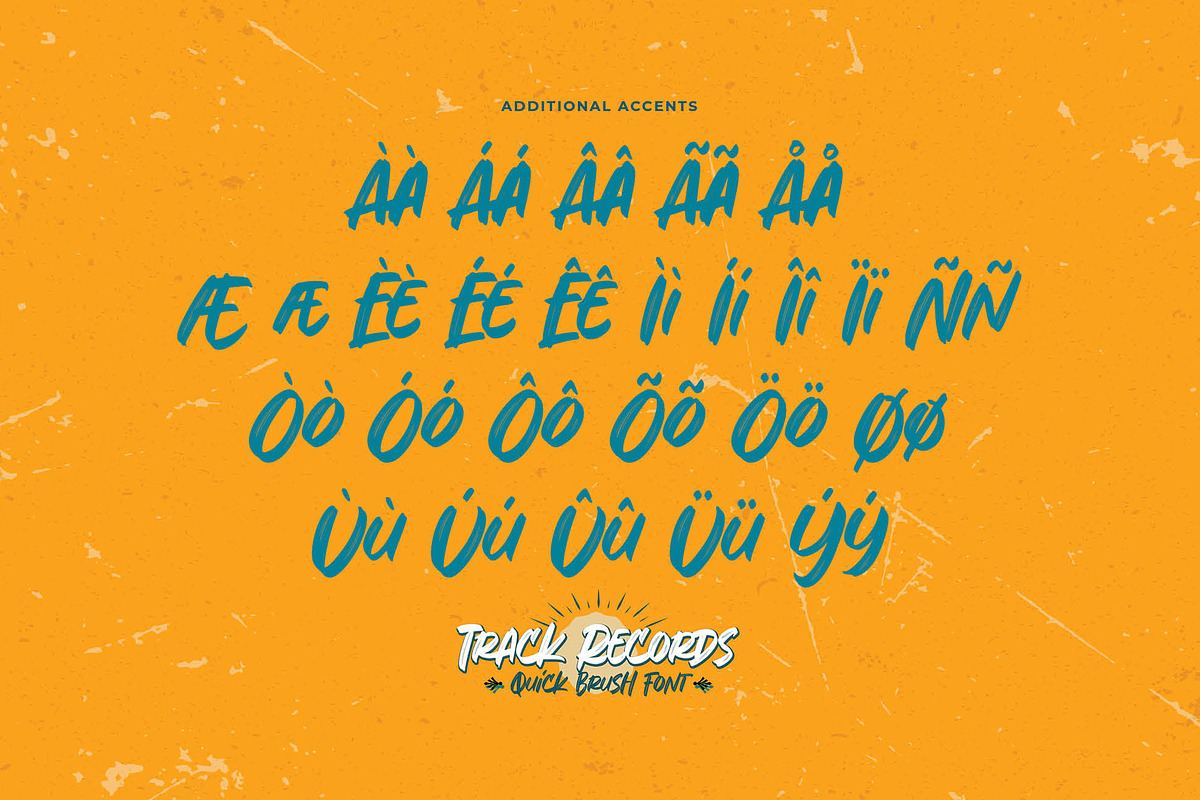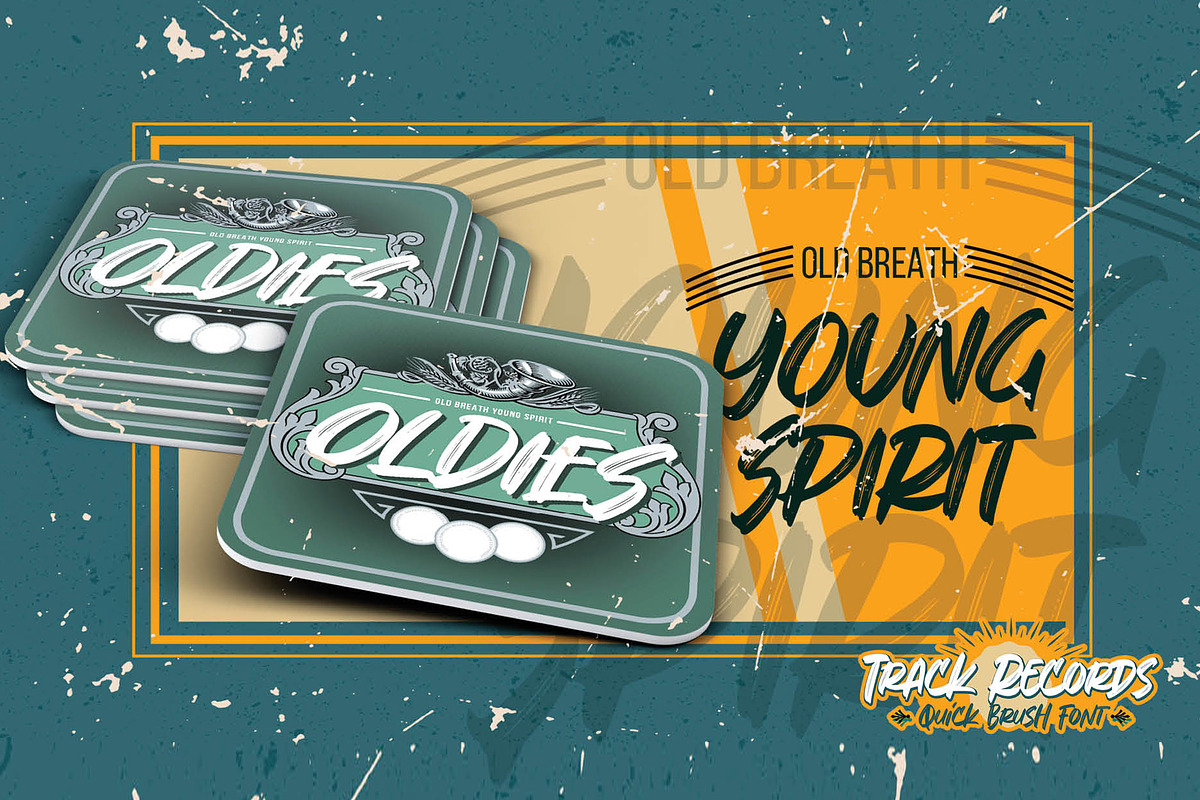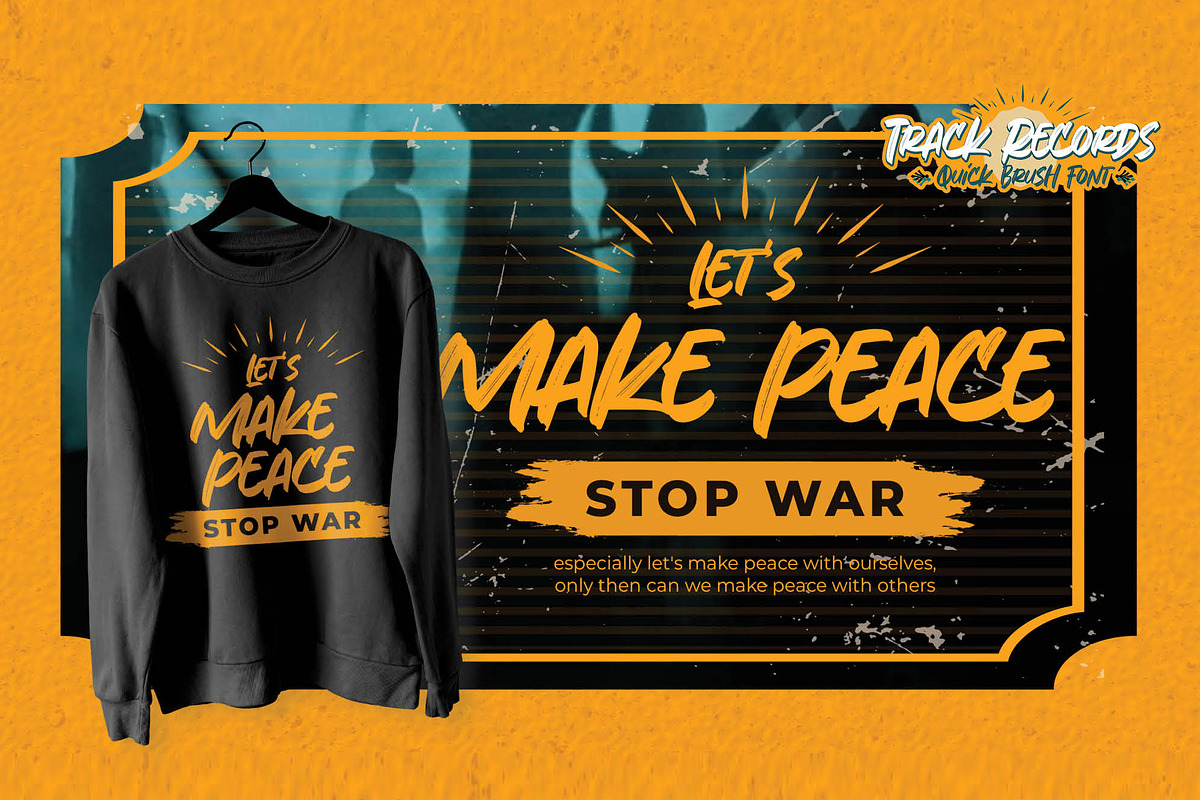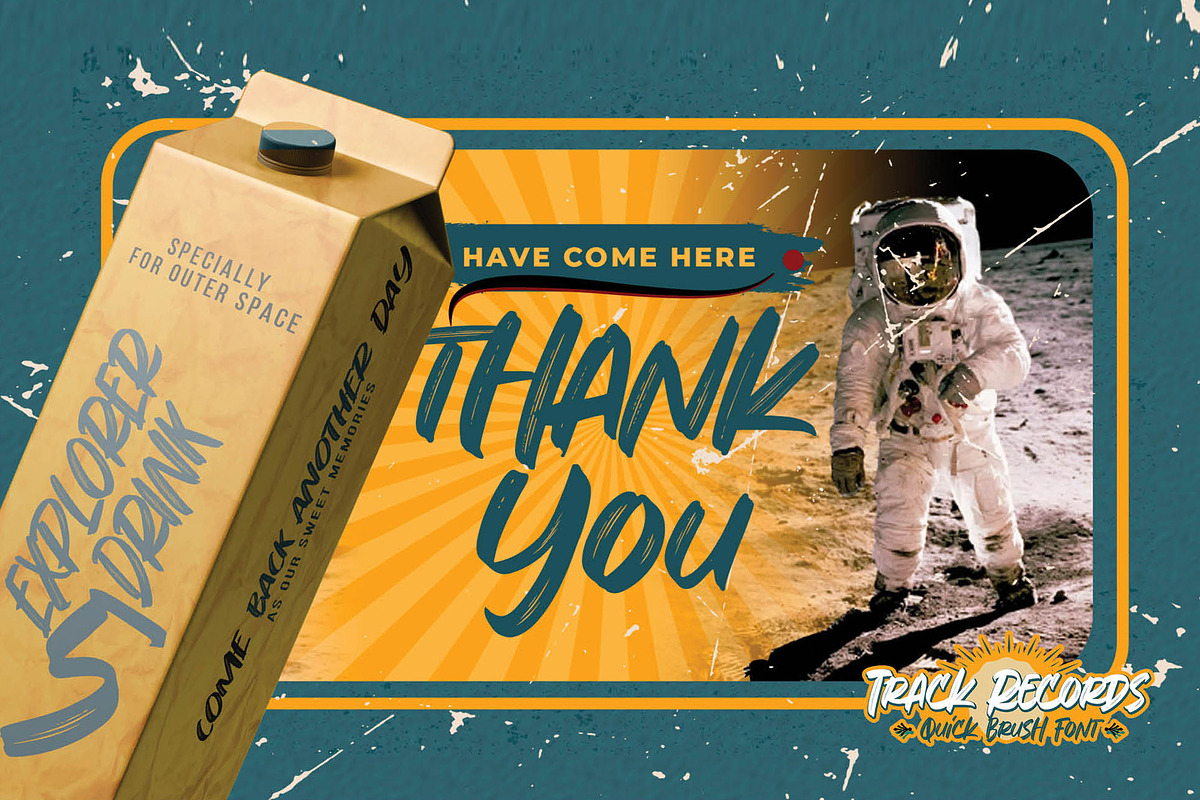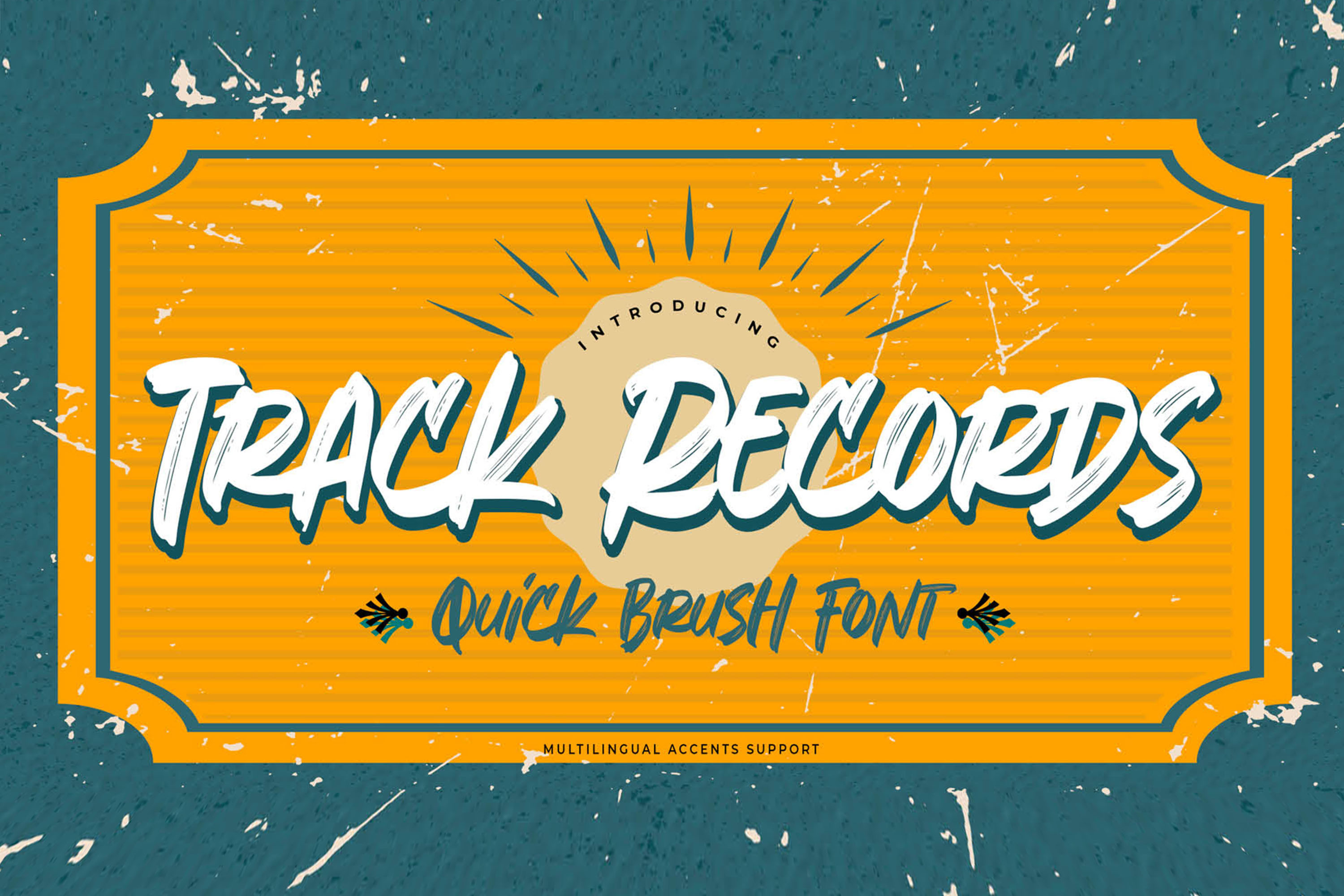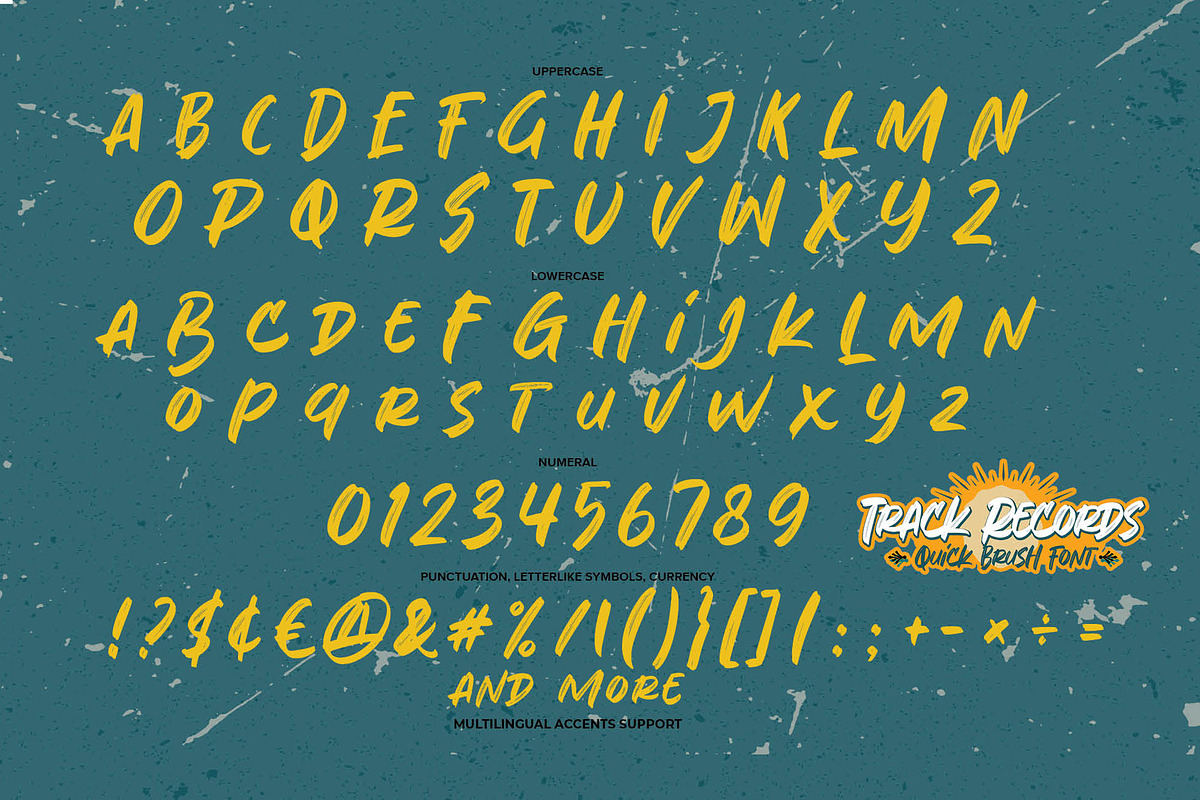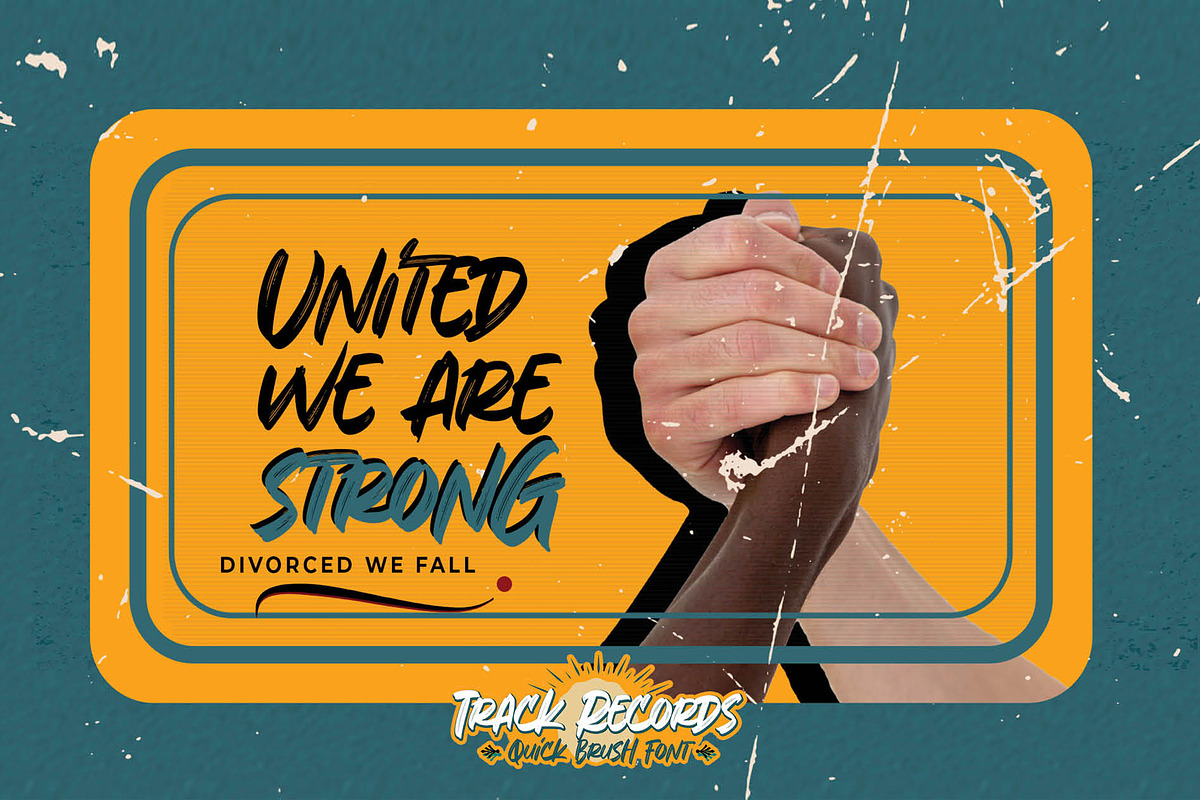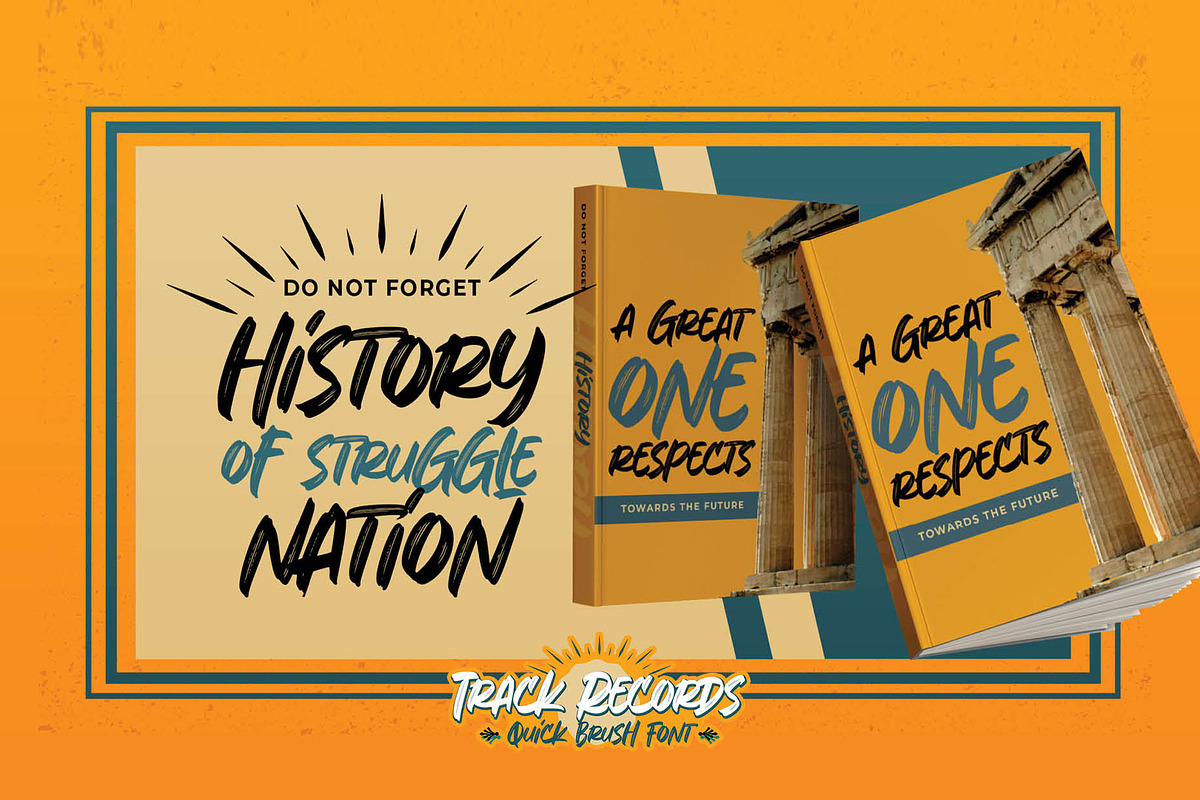
Track Records – Quick Brush Font
TRACK RECORDS is an energetic, wild, and expressive brush typeface crafted with fast, dynamic strokes. Designed to deliver a bold and spontaneous visual impact, this font brings a raw, artistic, and high-movement aesthetic—perfect for projects that need to stand out with attitude and intensity.
With natural brush textures and irregular hand-painted strokes, TRACK RECORDS offers a powerful artistic presence. Every letter feels alive, making it ideal for designs that embrace a modern, aggressive, and street-art inspired look.
Great For
• posters & event covers • modern branding & logos • band merchandise & streetwear • book covers & indie zines • bold editorial headlines • creative product packaging • social media graphics • artistic display titles
Style & Feel
bold • brush • aggressive • expressive • dynamic • urban